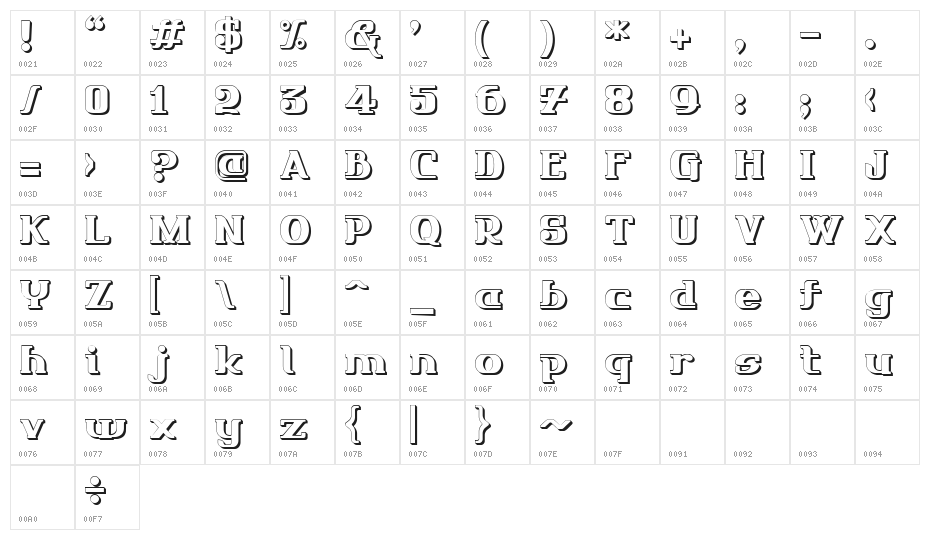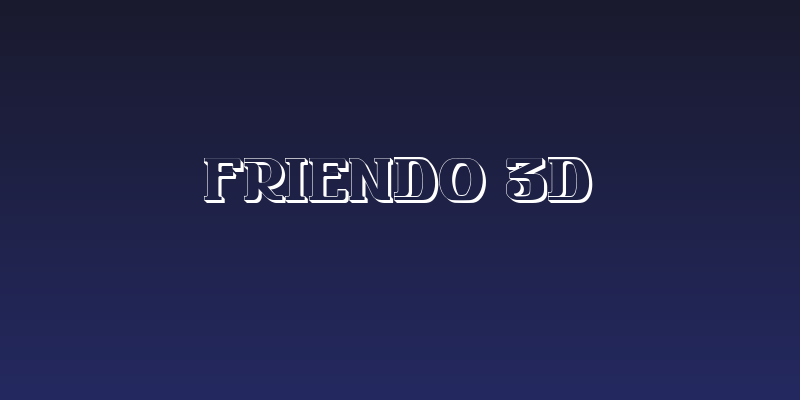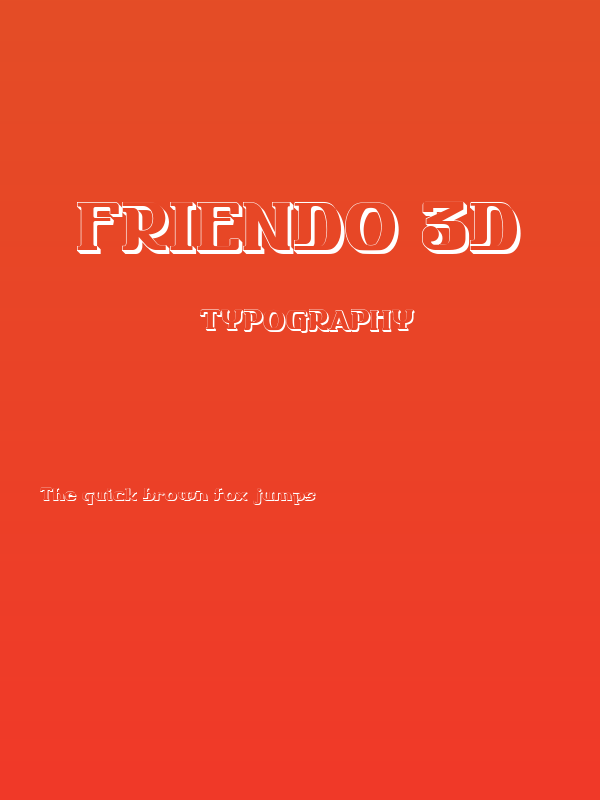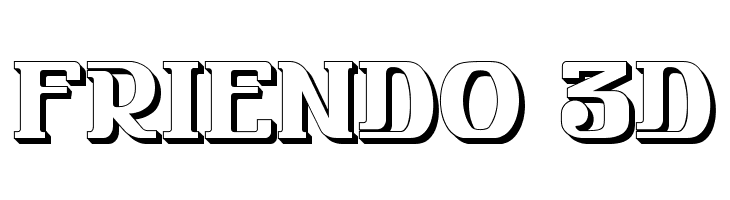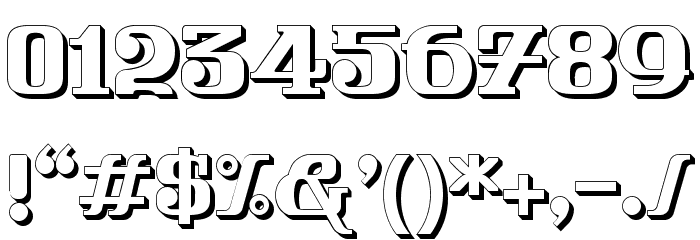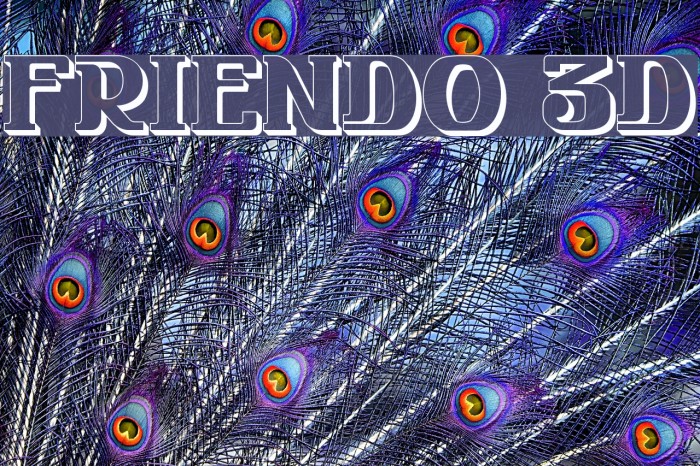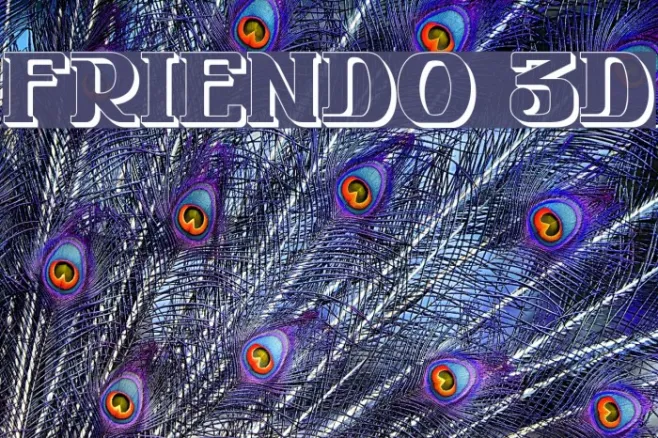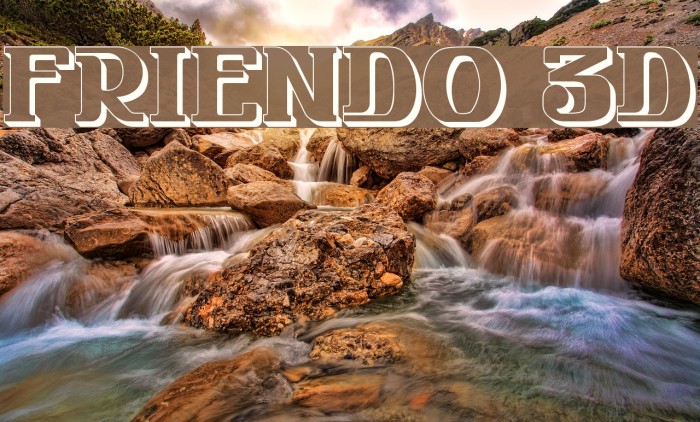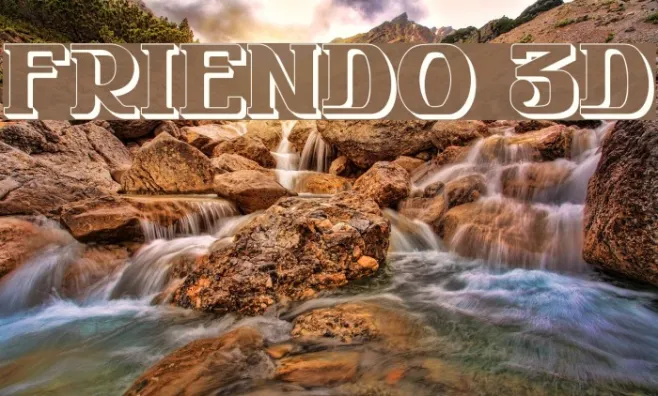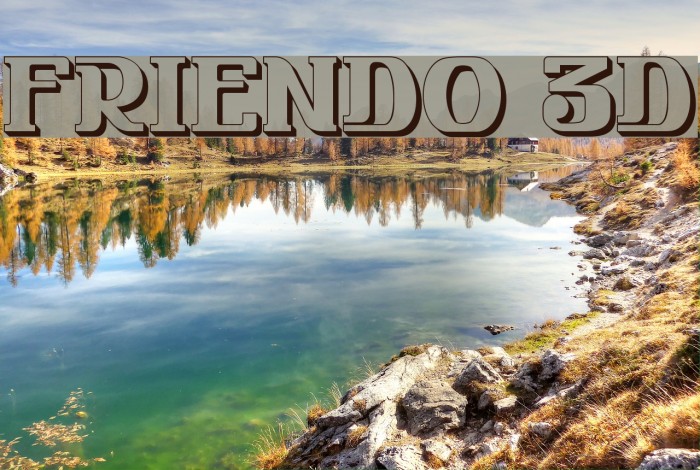
FRIENDO 3D Font
FRIENDO 3D Description
This font features a bold, three-dimensional design with a strong presence. The letters are outlined with a shadow effect, giving them a distinct 3D appearance. The uppercase and lowercase letters maintain a consistent style, with sharp edges and a geometric structure. The numbers and special characters follow the same design principles, ensuring uniformity across all glyphs. This font's unique style makes it stand out, ideal for attention-grabbing designs.
| Proposed Projects | Ideal for posters, logos, and headlines where a strong visual impact is desired. |